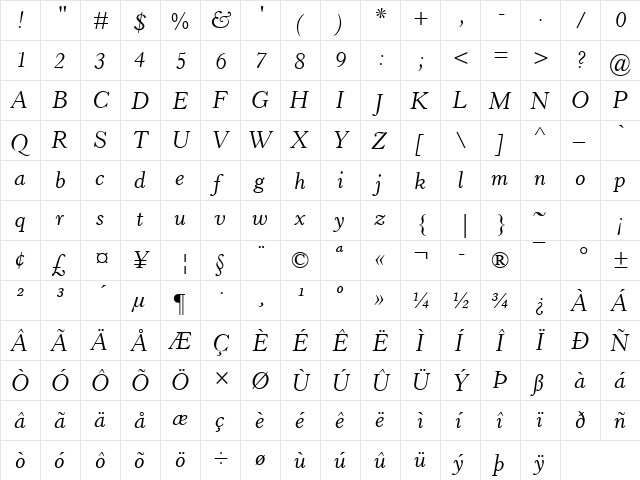
Horley OS MT Italic
Design Context for Horley OS MT Typeface
Horley OS MT takes a measured approach to typography — its balanced proportions and neutral character make it a reliable workhorse for both digital and print work. Its italic angle brings a sense of urgency and motion to the letterforms.
Pro Tip: Try Horley OS MT for annotation and caption copy alongside an upright companion — the contrast in angle creates a dynamic but ordered typographic system.